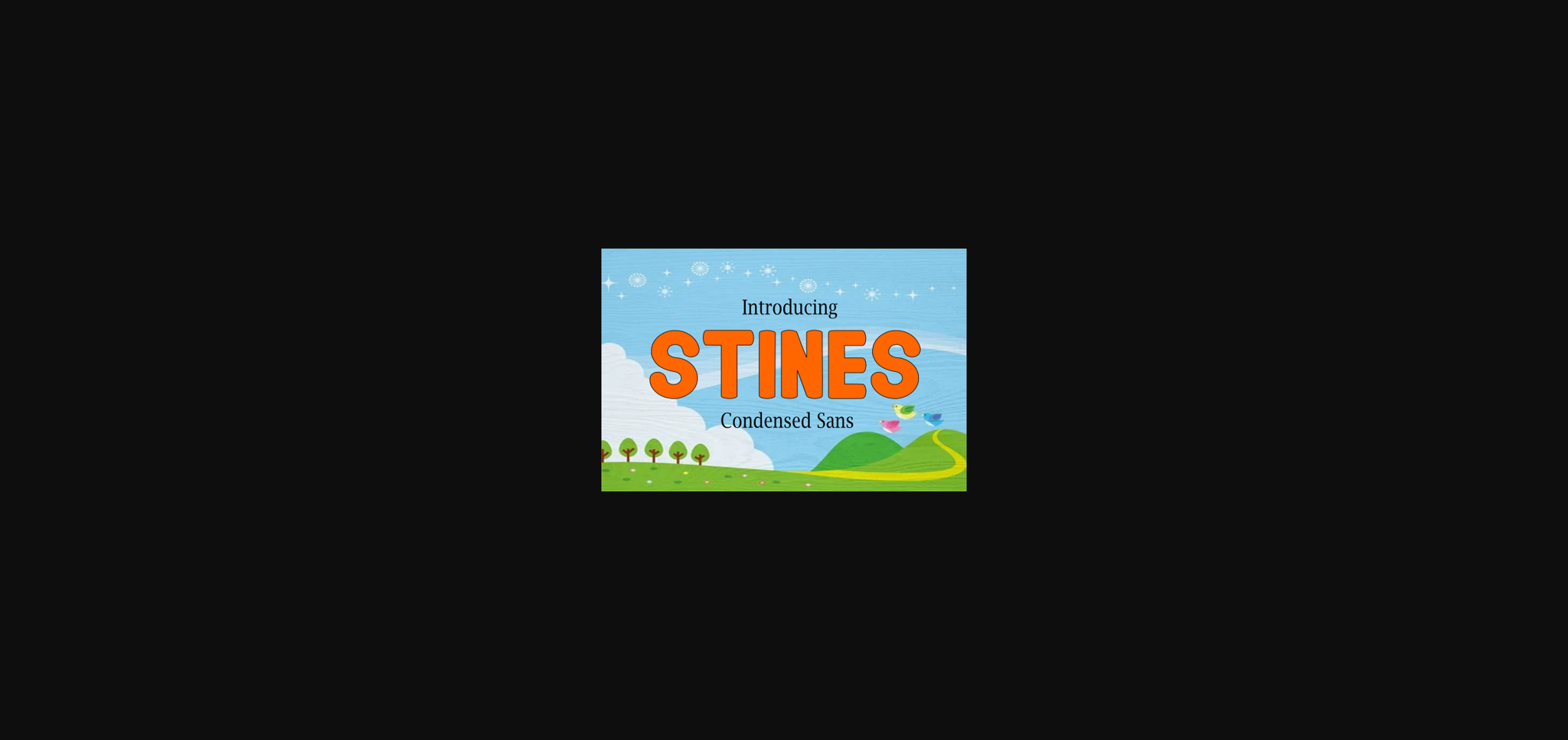
About Stines Font
Stines look bold, yet sophisticated and features chunky and extended characters that will look particularly adept when used in logos, branding, packaging design, and much more. This masterfully designed condensed sans font is a true must-have.